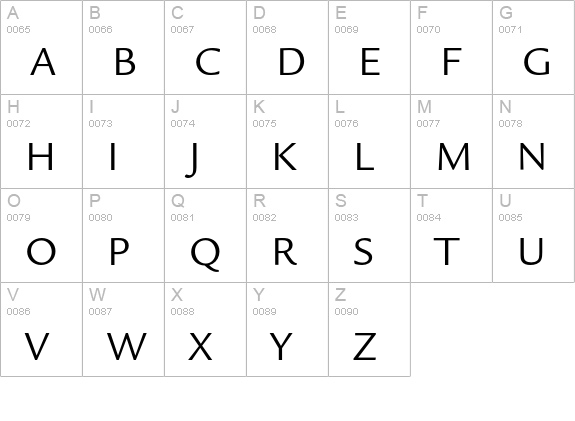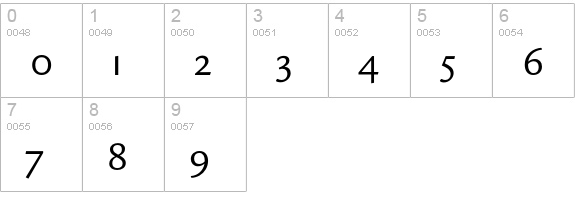
LegacySansEF-BookSC Font Details
LegacySansEF-BookSC is a stunning and versatile font that embodies the perfect balance between professionalism and elegance. With its clean and crisp lines, it is the ideal choice for any project that requires a touch of sophistication. This font features a classic and timeless design, making it suitable for a wide range of applications including branding, print design, web design, and more. Its carefully crafted letterforms ensure optimal legibility, allowing your message to be conveyed effortlessly to your audience. One of the most remarkable aspects of LegacySansEF-BookSC is that it is available to download for free at FontsMarket.com. This means that you can enhance your projects without any additional cost. Whether you are a professional designer or a hobbyist, this font empowers you to create visually stunning designs without breaking the bank. Furthermore, LegacySansEF-BookSC offers a wide range of characters and symbols, allowing you to add a personal touch to your designs. Its extensive language support ensures that you can use this font for projects in various languages, making it a truly versatile typeface. Experience the beauty and versatility of LegacySansEF-BookSC today by downloading it for free at FontsMarket.com. Elevate your designs and captivate your audience with this exceptional font that seamlessly blends elegance and professionalism.